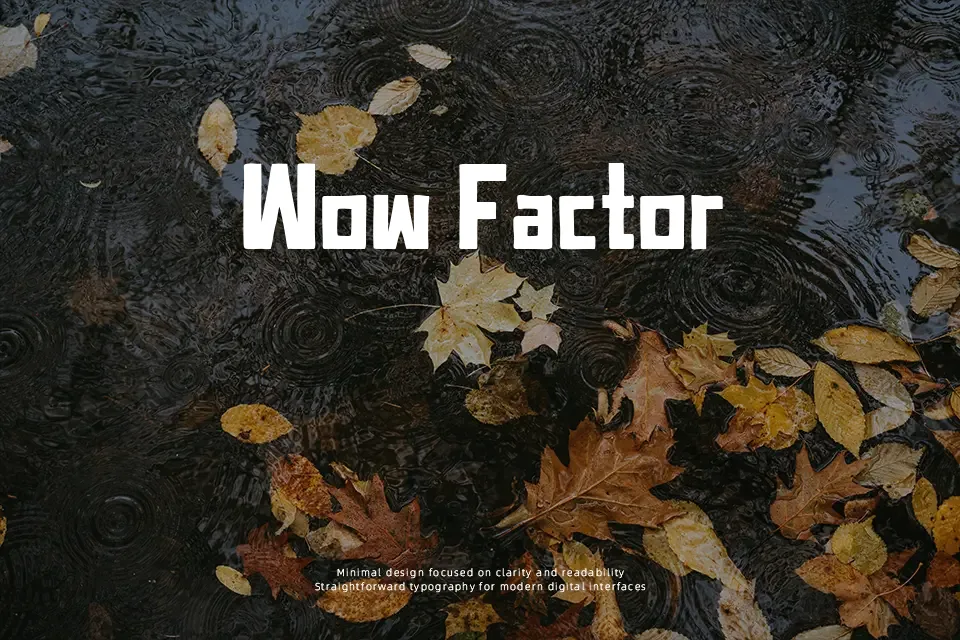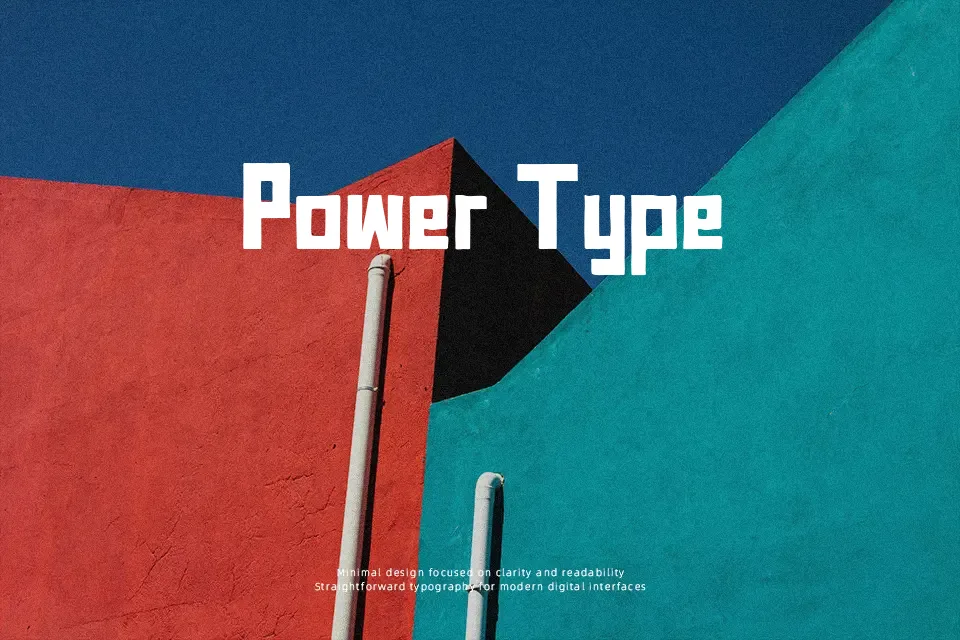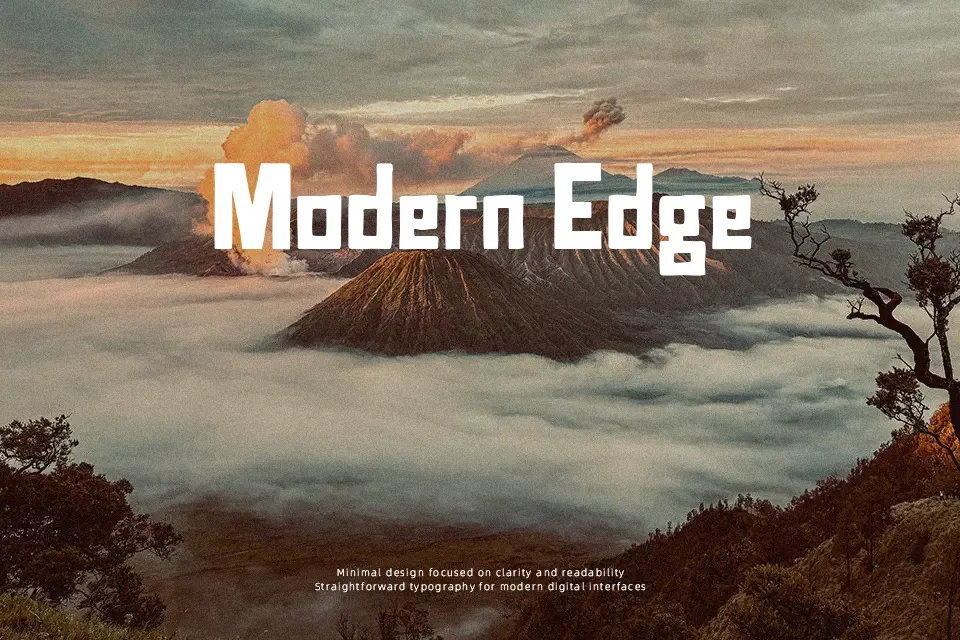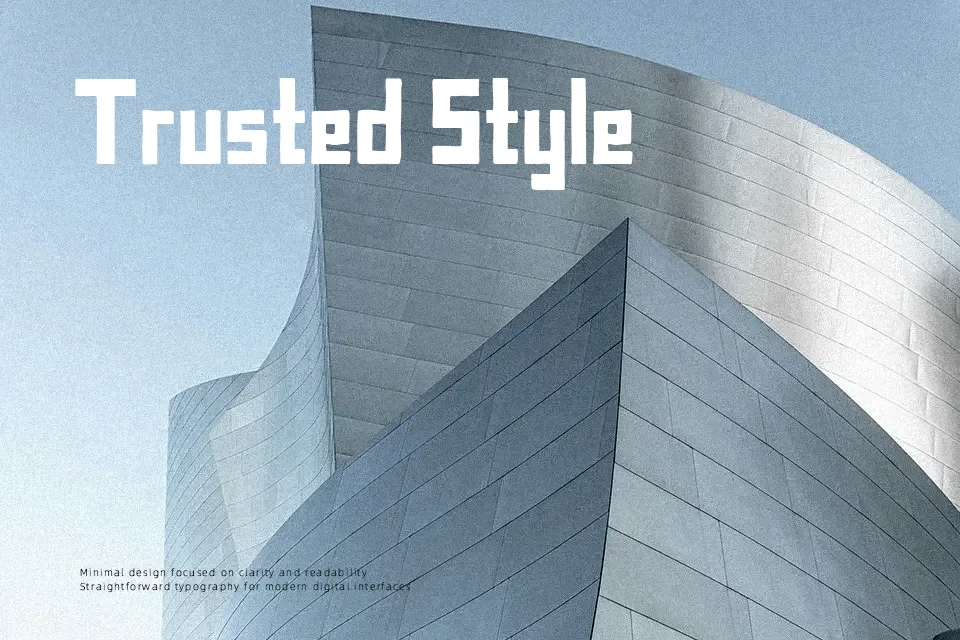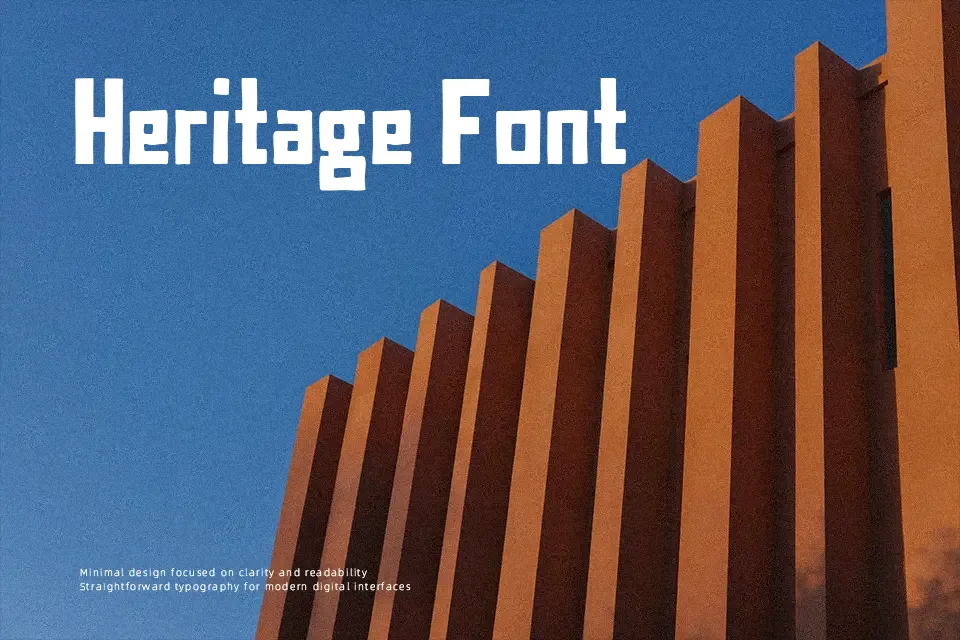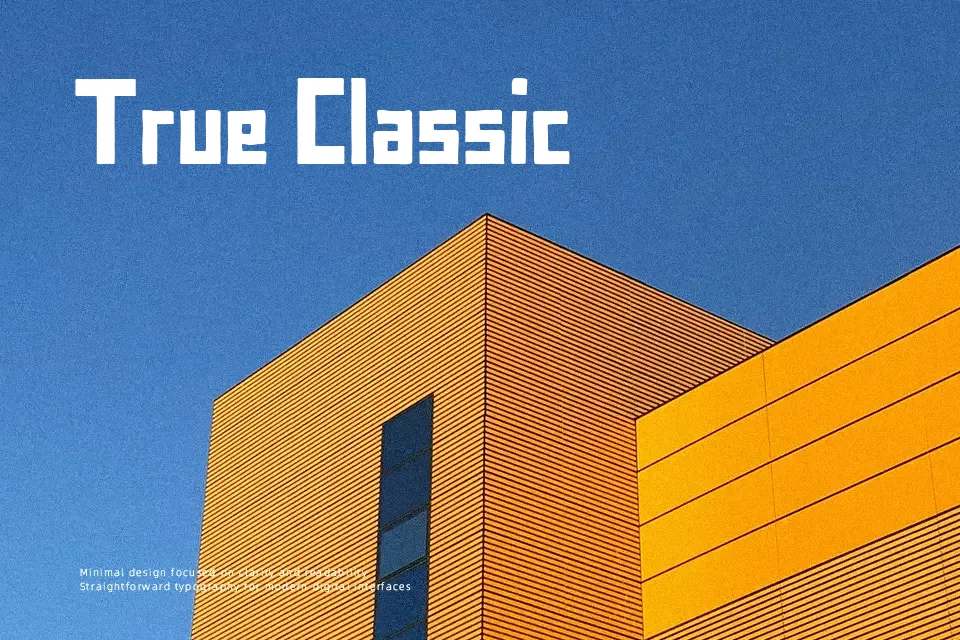
TTD Compadre Font
TTD Compadre Font presents an assertive visual presence defined by thick stroke weights, sturdy vertical stems, and tightly grouped character spacing. The typeface relies on condensed proportions that maximize ink density, giving uppercase compositions an unmistakable punch suitable for festival flyers, packaging labels, and apparel graphics. Across prominent headings, the design maintains consistent legibility and strong focal balance. However, the heavy strokes significantly reduce counter spaces, making extended passages difficult to decipher. Dense forms quickly lose distinction at small caption sizes, restricting this design from continuous reading environments where open rhythms are required.
Best For: festival flyers, apparel graphics, packaging labels, poster headlines
Not Ideal For: long paragraph text, dense editorial layouts, small interface labels, mobile body text
Perfect for advertising, headline, and logo, with a bold and decorative style.